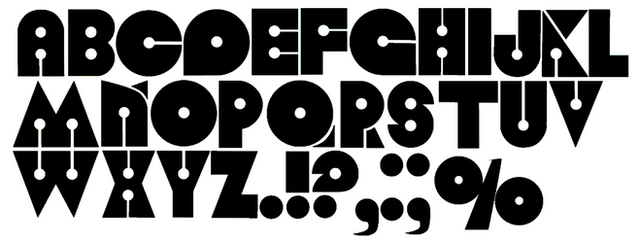
Description My latest font, Modo, is a chunky beast suitable for headlines, logos and posters. It's free to download here: www.david-bird.com. For find out about more free stuff by following me on www.twitter.com/birdyzine
Hey so I found your font and just wanted to let you know that the s and the z in the download are very different from what you have here.
Nice looking Font there; something very different for a change.
cool font! why is it called modo?
It sounded cool
Wow that looks like its been carved onto metal. That is so cool!